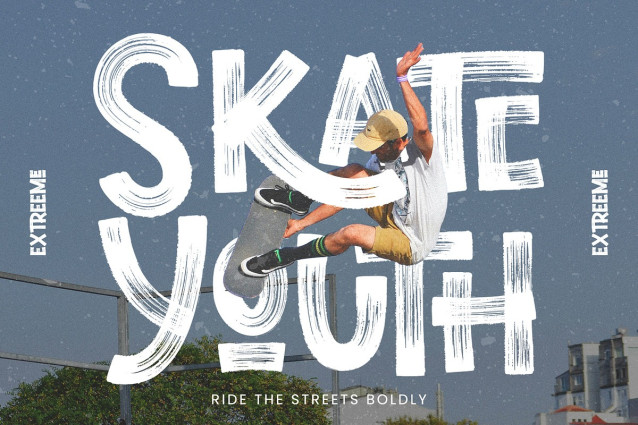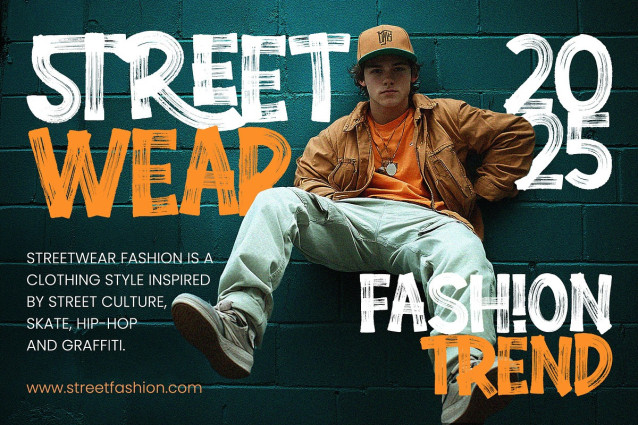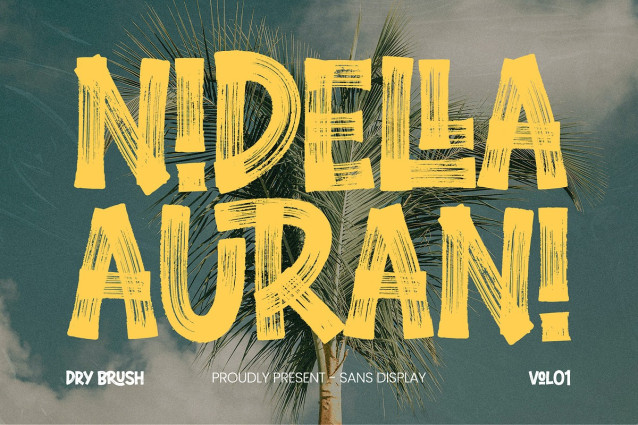
Nidella Dry Brush Font
Nidella Dry Brush Font – Brings a handcrafted, dynamic, bold style, ideal for modern, eye-catching designs that stand out and inspire creativity with a unique touch.
Uppercase & Lowercase Characters: Fully designed for a complete typographic experience
Numerals & Punctuation: All the numbers and punctuation marks you need for any design task
Multilingual Support: Includes characters for multiple languages, ensuring global usability
High-Quality Design: Each font is crafted with attention to detail, ensuring a polished and professional look